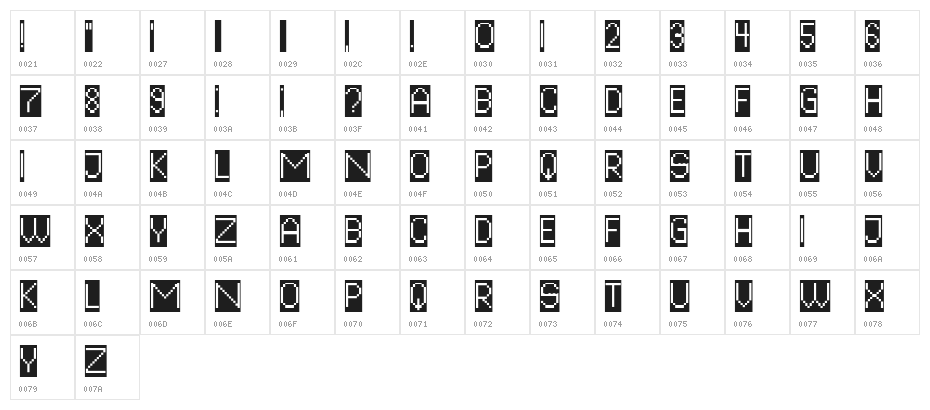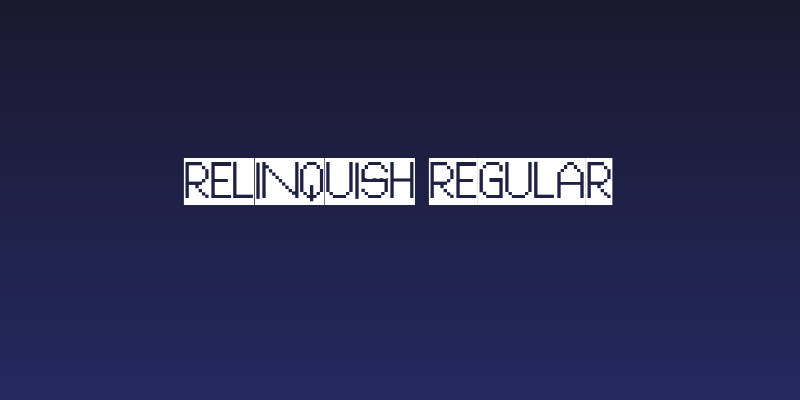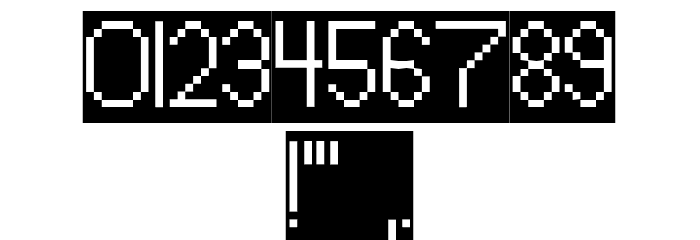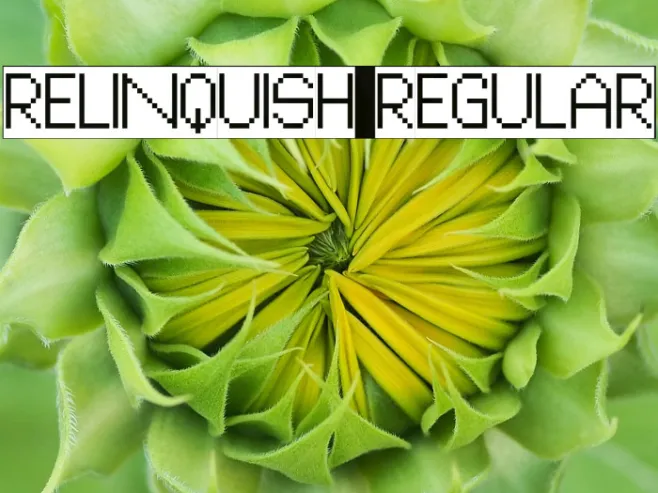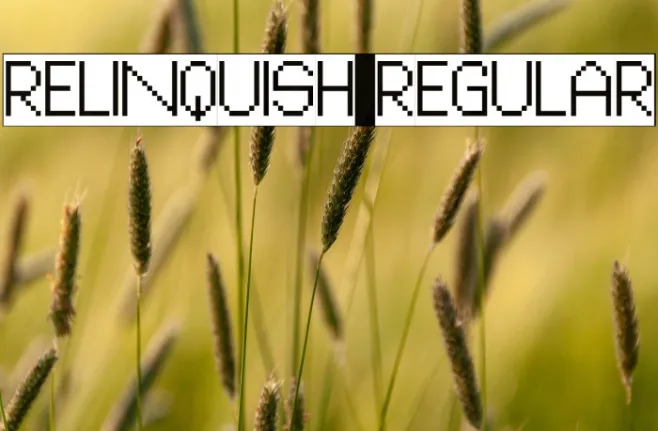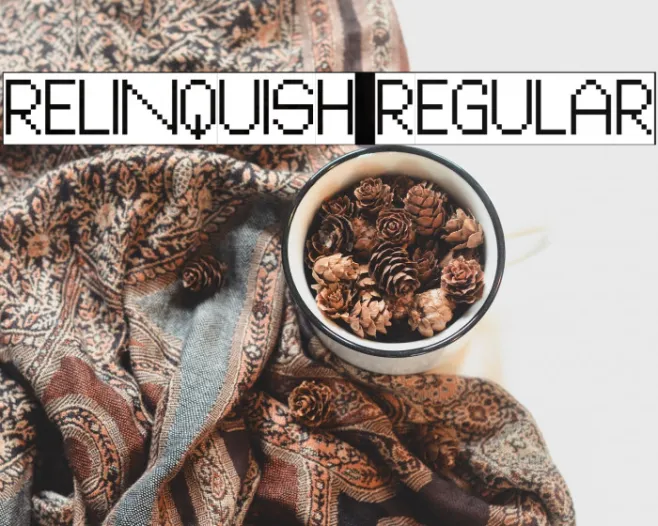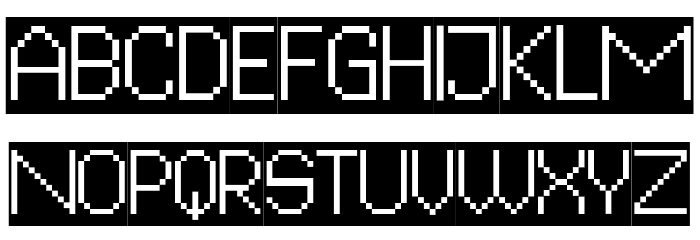
Relinquish Regular Font
Relinquish Regular Description
This font features a pixelated, grid-like design reminiscent of early digital displays and retro video games. Each character is constructed with a uniform blocky style, giving it a distinctly digital and geometric appearance. The uppercase and lowercase letters maintain a consistent height, contributing to a monospaced feel. The numerals and special characters follow the same pixelated pattern, ensuring visual harmony across all glyphs. This font's unique style makes it ideal for projects that aim to evoke nostalgia or a tech-inspired aesthetic.
| Use Case | Logos, Headlines, Digital Art |
| Proposed Projects | Ideal for retro video game graphics, tech-themed posters, digital art projects, and any design requiring a nostalgic digital look. |